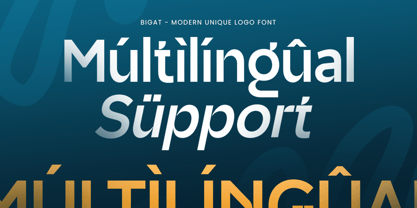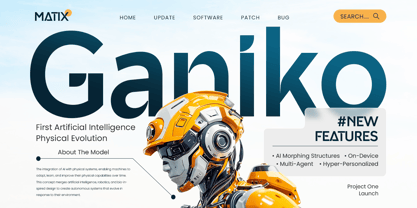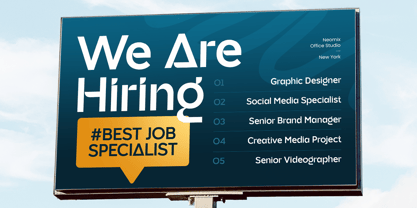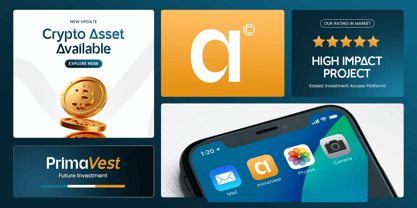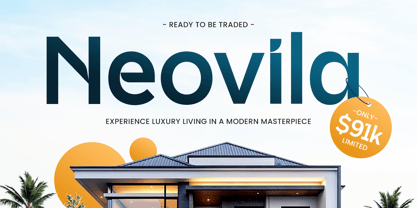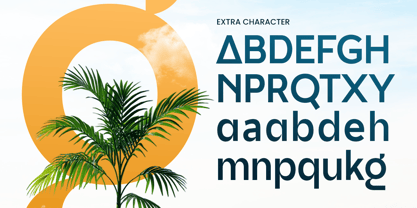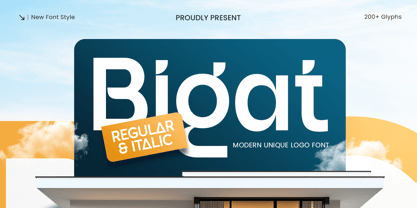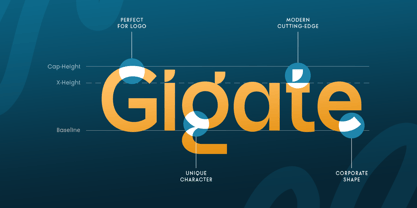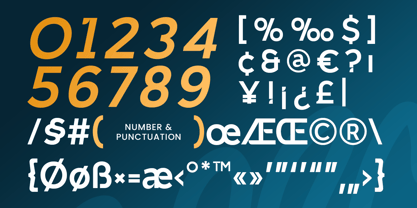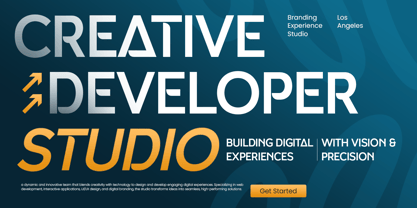
BIGAT is a modern and unique logo font designed to make your brand stand out with bold simplicity and a creative edge. Combining geometric precision with distinctive letter shapes, this typeface is ideal for creating stylish logos, sleek packaging, and professional branding systems.
With its refined structure and balanced proportions, BIGAT embodies both modernity and sophistication. It works beautifully for fashion brands, design studios, technology startups, and lifestyle products that demand clean yet memorable typography.
Whether used for headlines, brand marks, or editorial layouts, BIGAT brings clarity, character, and timeless appeal to any design project.
Font Features
Minimal and geometric sans serif design
Perfect for logos, packaging, and branding projects
Unique letterforms that create a modern visual identity
Great for print, digital, and editorial applications
Includes uppercase, lowercase, numerals, and punctuation
OpenType features for advanced design control
Bigat